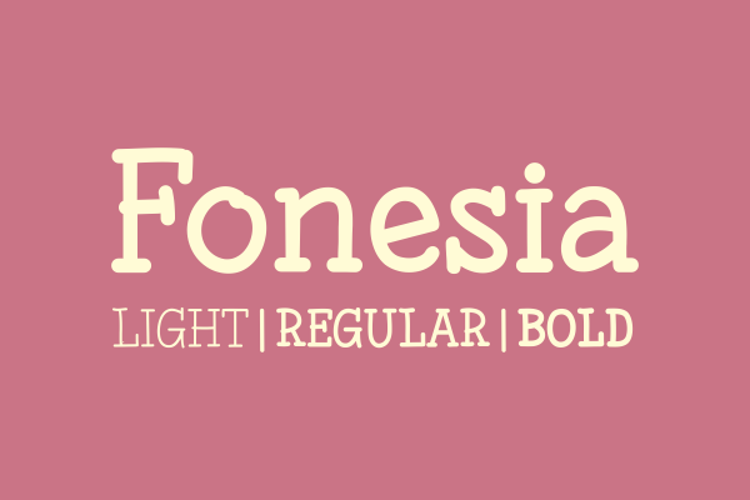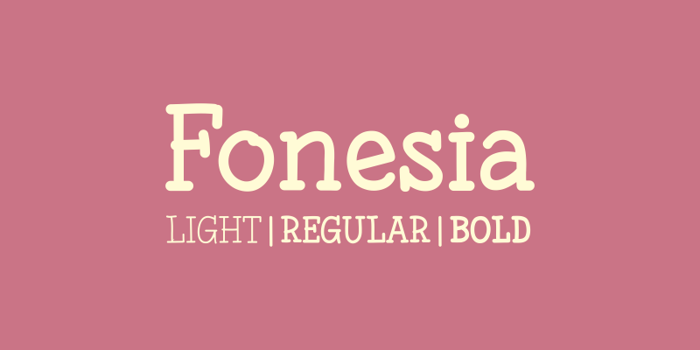
Fonesia Font
Fonesia was inspired by stroke of handwritten style. Available in three styles; light, regular and bold. Free for personal and commercial use.